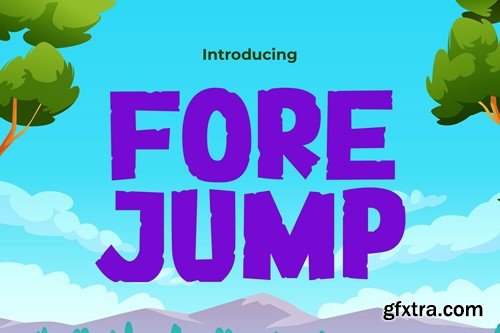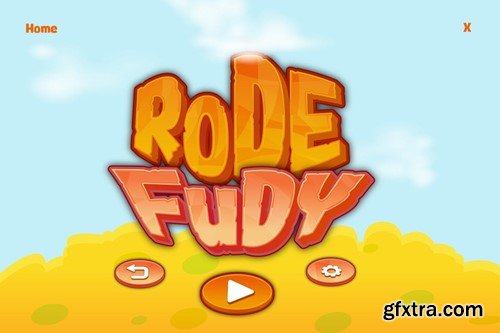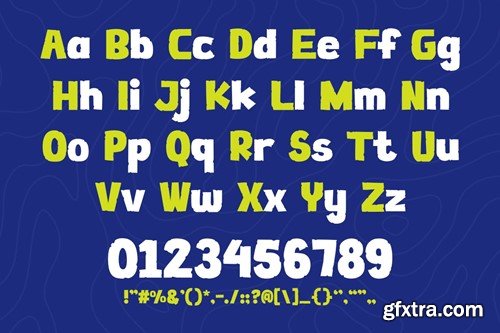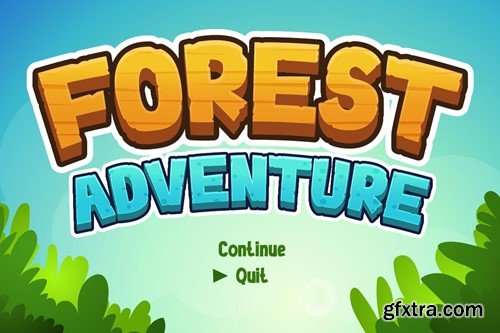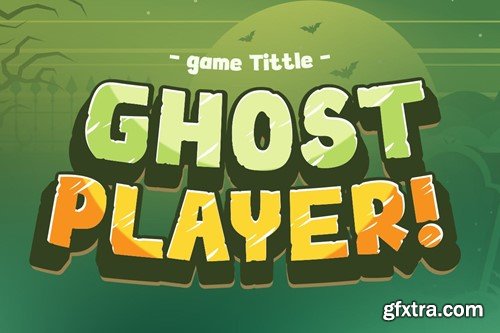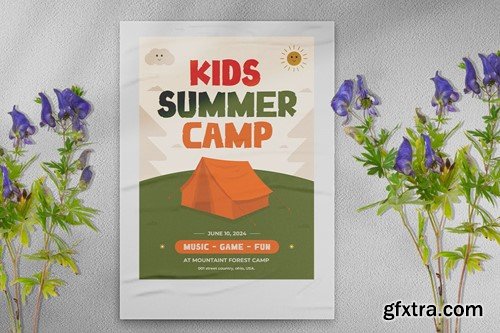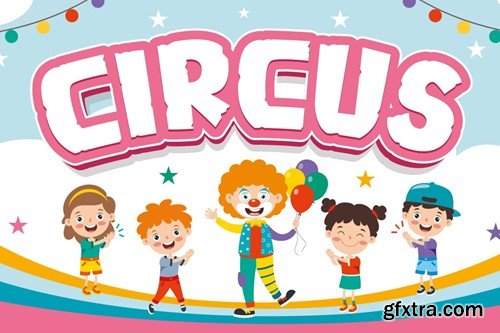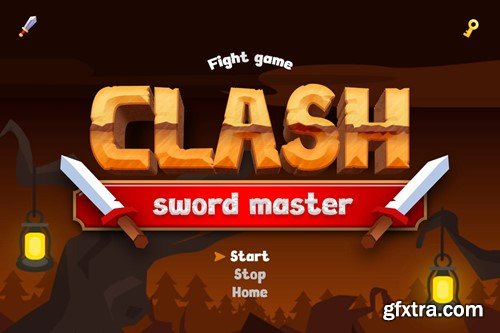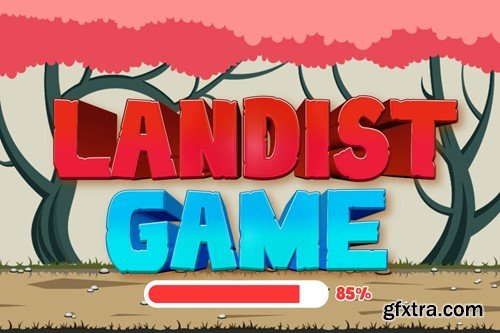
飞跃 - 提升你的设计游戏字体 5TG4BV5
Forejump - Level Up Your Design Game Font 5TG4BV5
Forejump - Level Up Your Design Game Font
Forejump is a dynamic font explicitly designed for the gaming world, blending the playful spirit of cartoons with the competitive edge of esports. This font is a go-to choice for designers looking to inject fun, youthful energy into their projects. Whether creating vibrant logos, engaging quotes, or lively event invitations, Forejump adds a touch of video game magic that captivates and entertains. Its cartoonish style is perfect for posters and greetings that aim to delight and amuse, while its boldness makes branding and packaging stand out with an eye-catching appeal. For covers, headlines, and advertising in the gaming sphere, Forejump ensures every message is impactful and memorable, making it a favorite among designers aiming to resonate with a gaming audience.